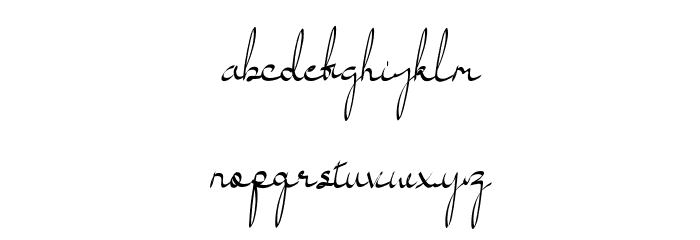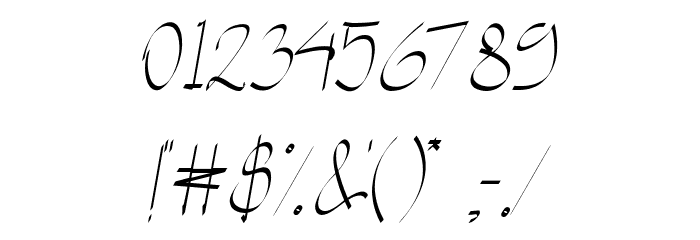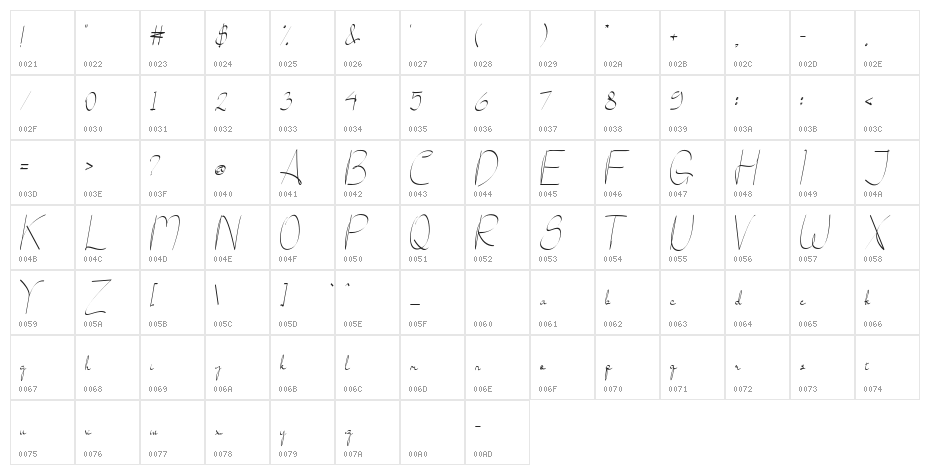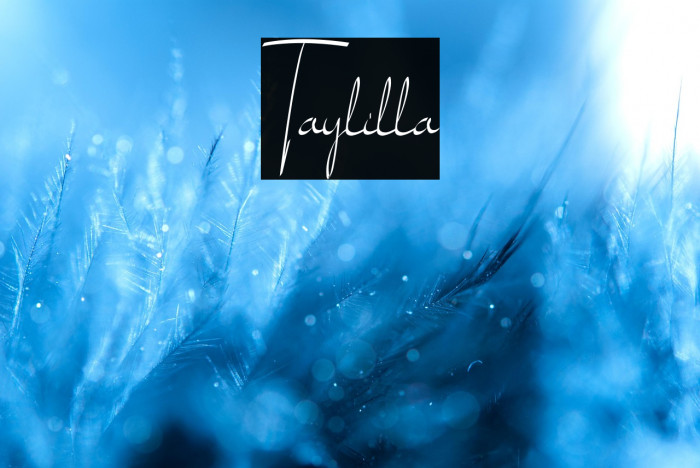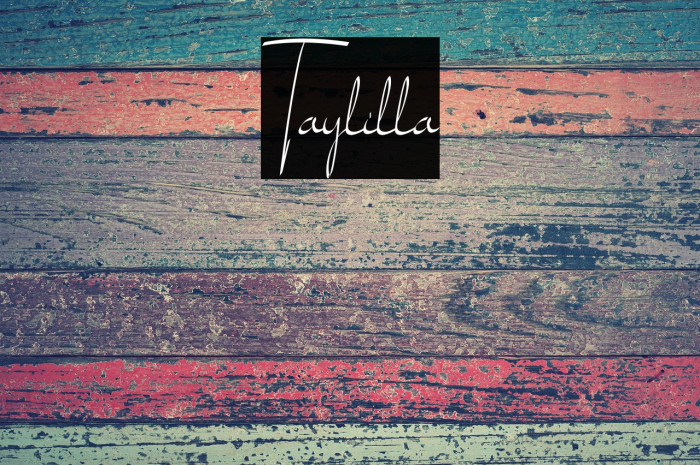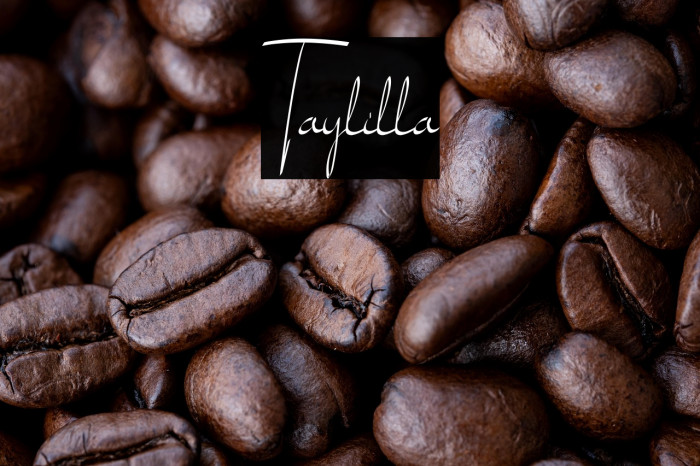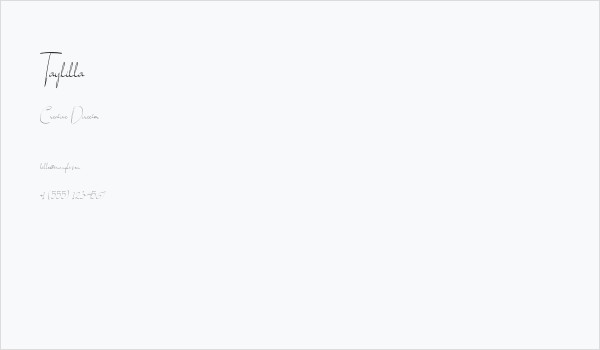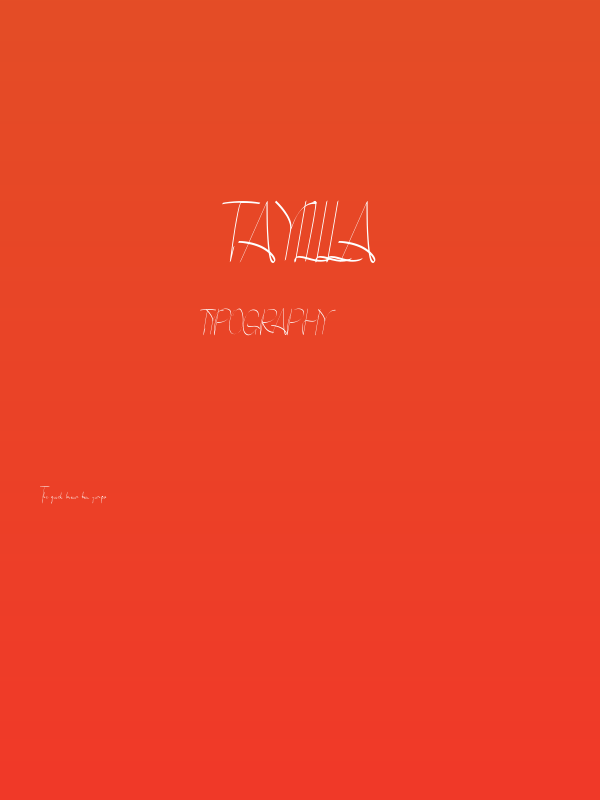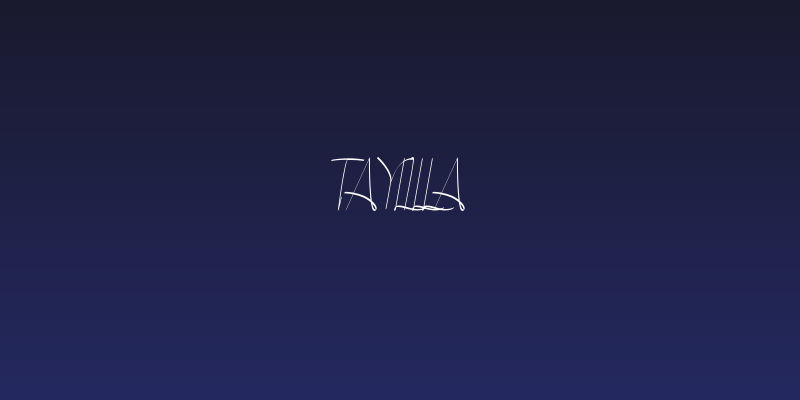
Taylilla Font
This font features an elegant and flowing script style, characterized by its thin, delicate lines and graceful curves. The uppercase letters exhibit a sense of movement and fluidity, while the lowercase letters maintain a consistent, cursive form. The numerals are designed with a similar flair, adding a touch of sophistication. Special characters are integrated seamlessly, enhancing the font's overall aesthetic. The design is reminiscent of handwritten calligraphy, making it suitable for projects that require a personal and artistic touch.
An elegant, flowing script font with thin, delicate lines and graceful curves.
- Proposed Projects: Ideal for wedding invitations, greeting cards, personal branding, and artistic projects.
- Category: Script
- Weight: Light
- Use Case: Logos, Invitations, Artistic projects